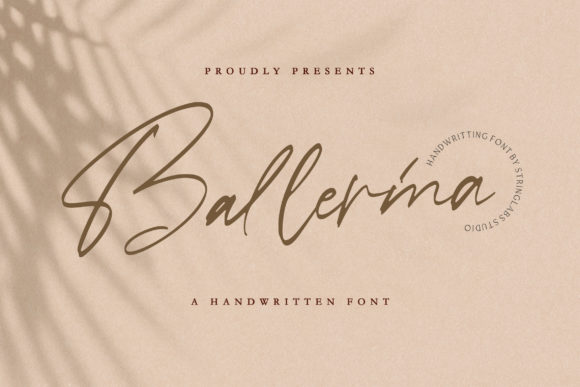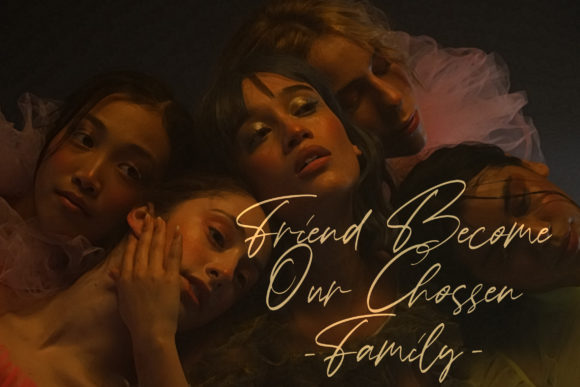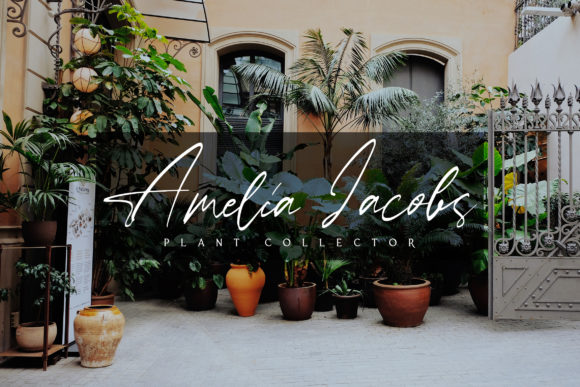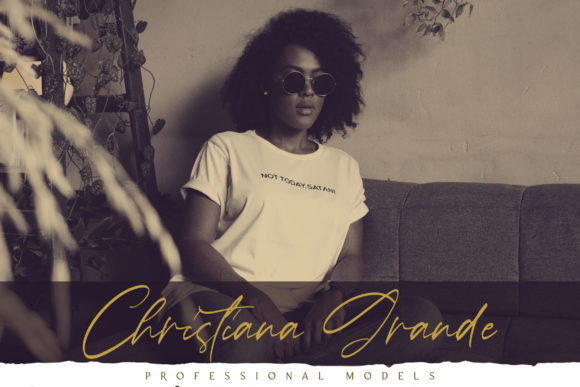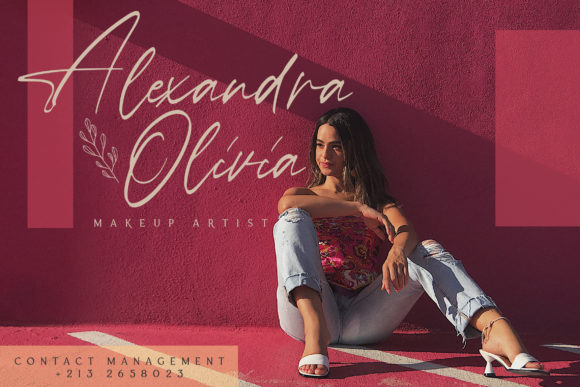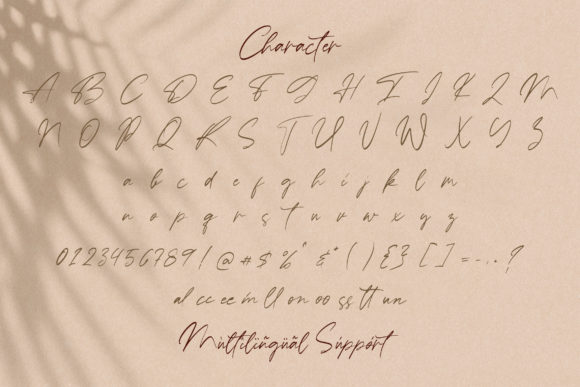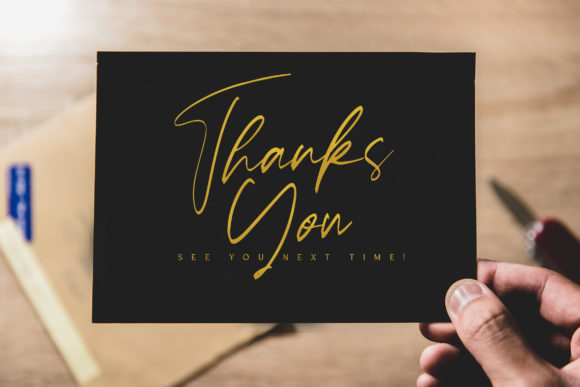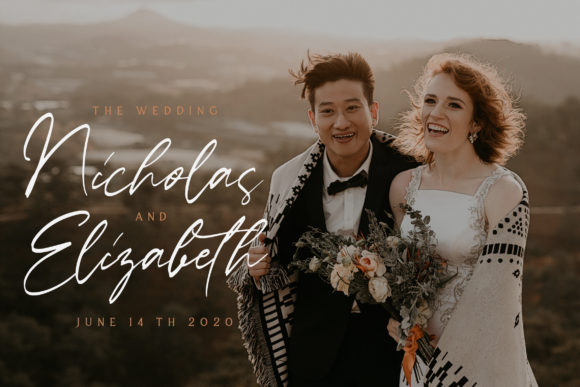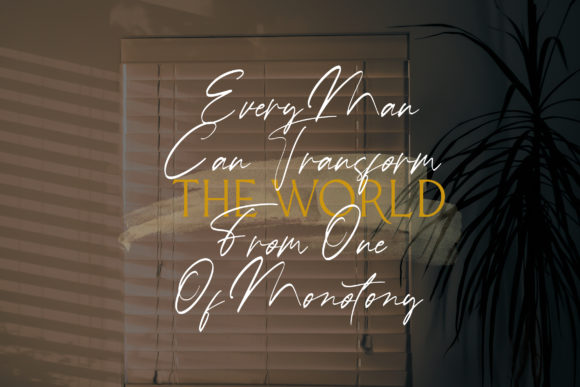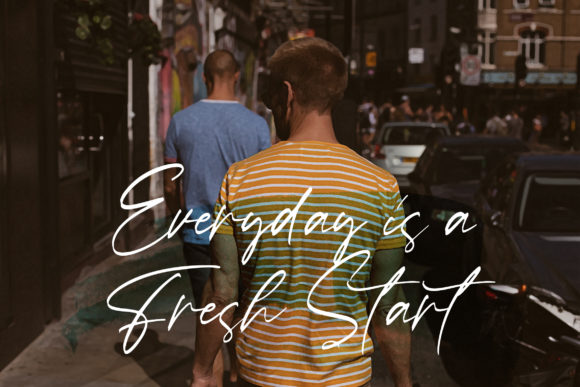
Ballerina Font
About Ballerina Font
Ballerina is a unique, soft hand-lettered script font. It features an incredibly classic style, while still keeping a friendly feel. Ballerina is the perfect font for making original and outstanding designs.